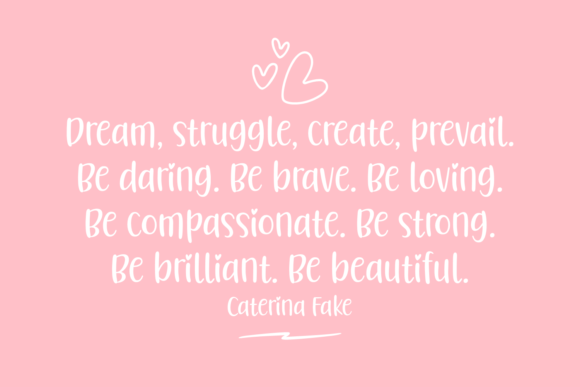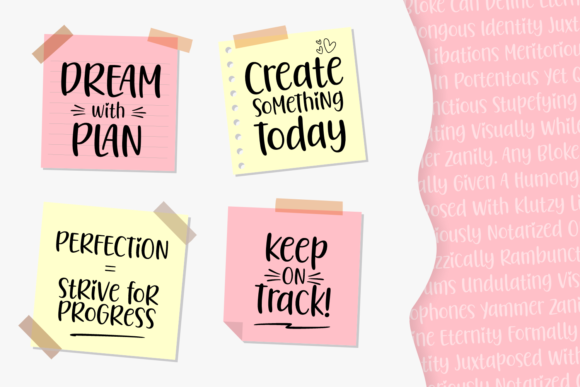
Brilly Notes Font
db-ku.com - Script & Handwritten -- Brilly Notes is a sweet and friendly handwritten font. Its natural and unique style makes it incredibly fitting to a large pool of designs. The only limit is your imagination!